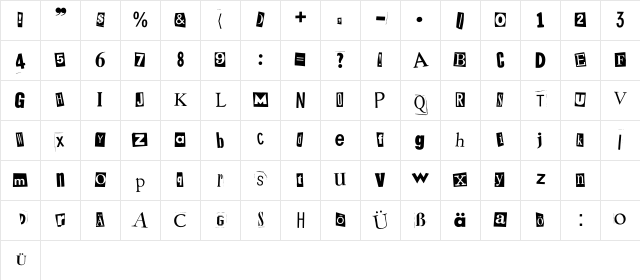
Complete Mystery Mixed glyph index. Displaying only characters natively supported by Mystery Mixed font.
Mystery is a composed and adaptable typeface that performs quietly and consistently across a wide range of design contexts.